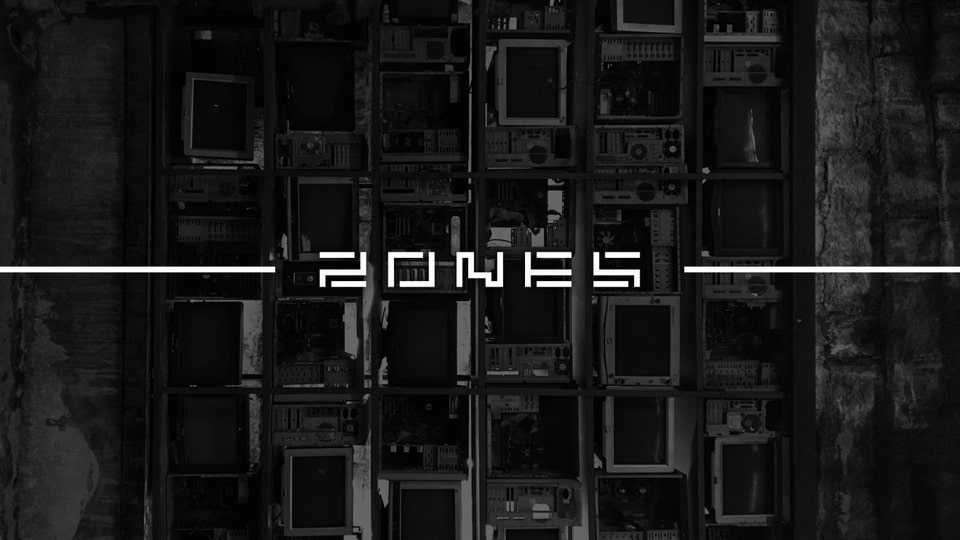
Download Zones font, a bold and futuristic display typeface crafted with sharp angles and clean lines, following the strict geometry of the square grid.
Designer: Rohan Majrikar